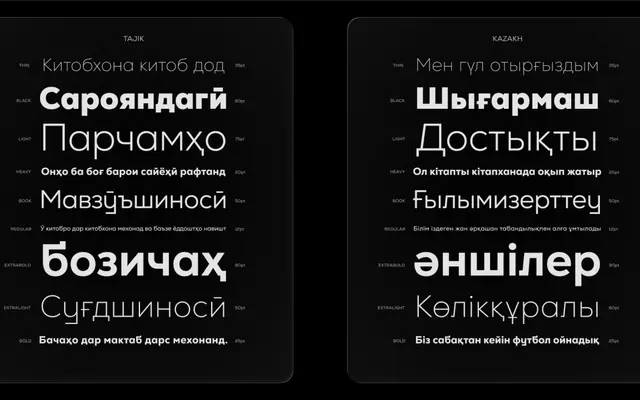
Nexa Pro
Fontfabric · Svet Simov, Ivelina Martinova, Ani Dimitrova · 2025
An expanded, variable-capable update to Fontfabric's popular Nexa family, adding Greek, extended Cyrillic, Vietnamese and small caps across 40 styles.
The Pro version of Nexa reworks the original's geometric skeleton with refined proportions and updated characters, then extends it with variable font files, small caps, old-style figures and a broader currency set. The family splits into two subfamilies — Nexa Pro for display and general use, and Nexa Text Pro optimised for smaller sizes — each running nine weights from Thin to Black with matching italics. Broad script coverage across Latin, Cyrillic, Greek and Vietnamese makes it a workable choice for multilingual branding and digital interface work.
Nexa Pro is explicitly described as a geometric sans-serif, built on clean geometric structure with low stroke contrast and optically balanced letterforms — consistent hallmarks of the geometric sans genre.